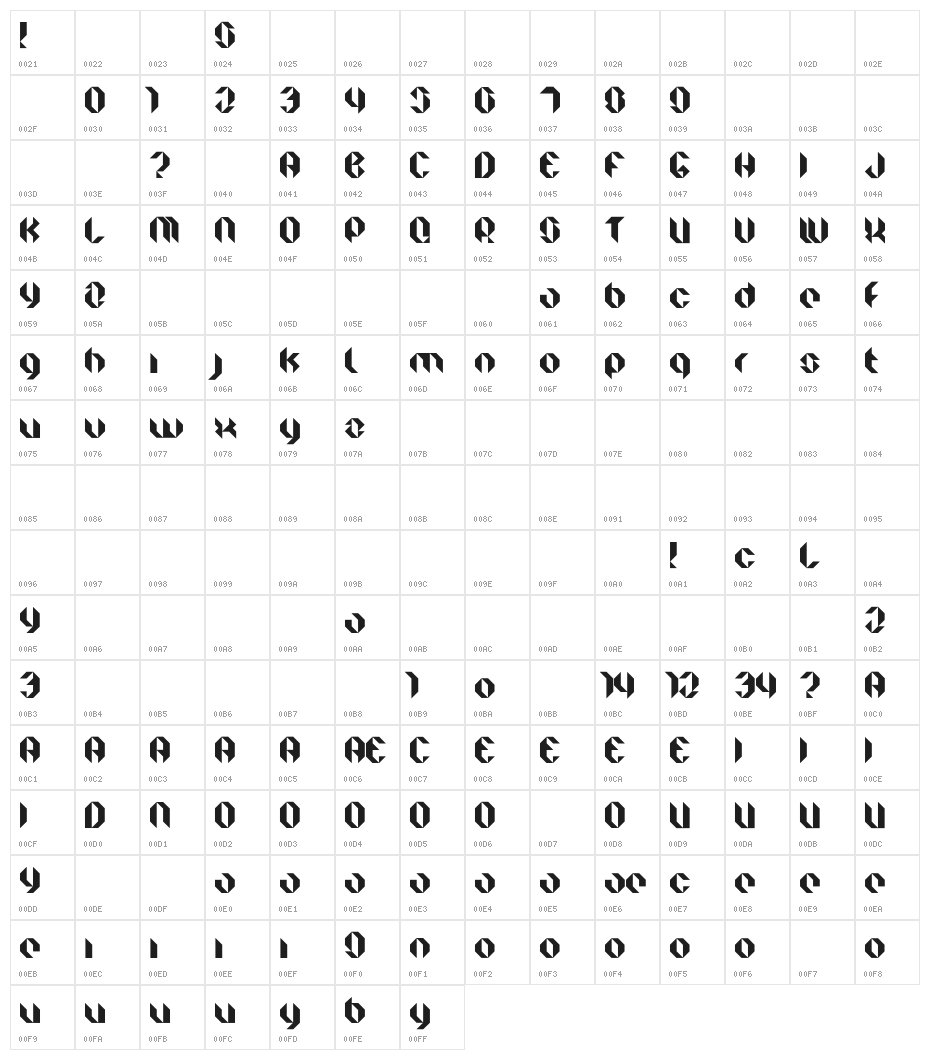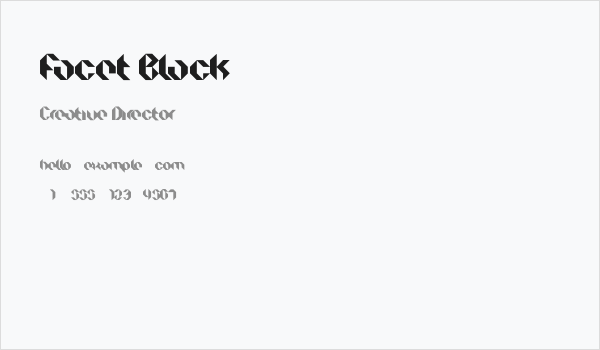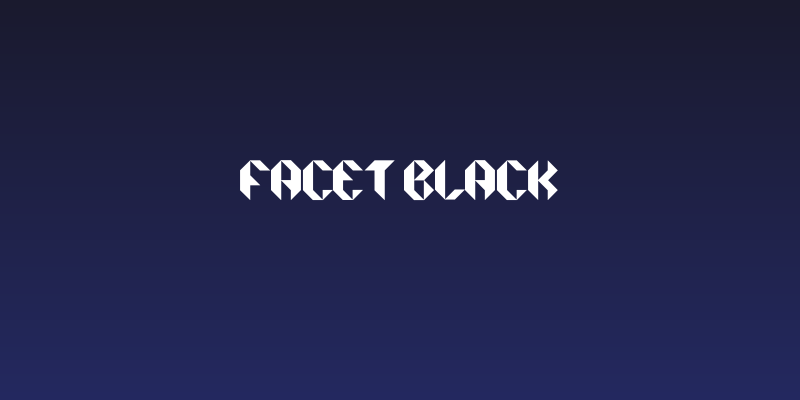
Facet Black Font
Facet Black Description
This font features a bold, geometric design with sharp angles and a distinct, faceted appearance. Each character is crafted with precision, creating a striking visual impact. The uppercase and lowercase letters maintain a consistent style, while the numbers and special characters complement the overall aesthetic. The design is reminiscent of modern architectural elements, making it ideal for projects that require a strong, contemporary look. The font's unique structure ensures high readability despite its decorative nature.
Proposed ProjectsIdeal for branding, poster design, album covers, and modern digital interfaces.